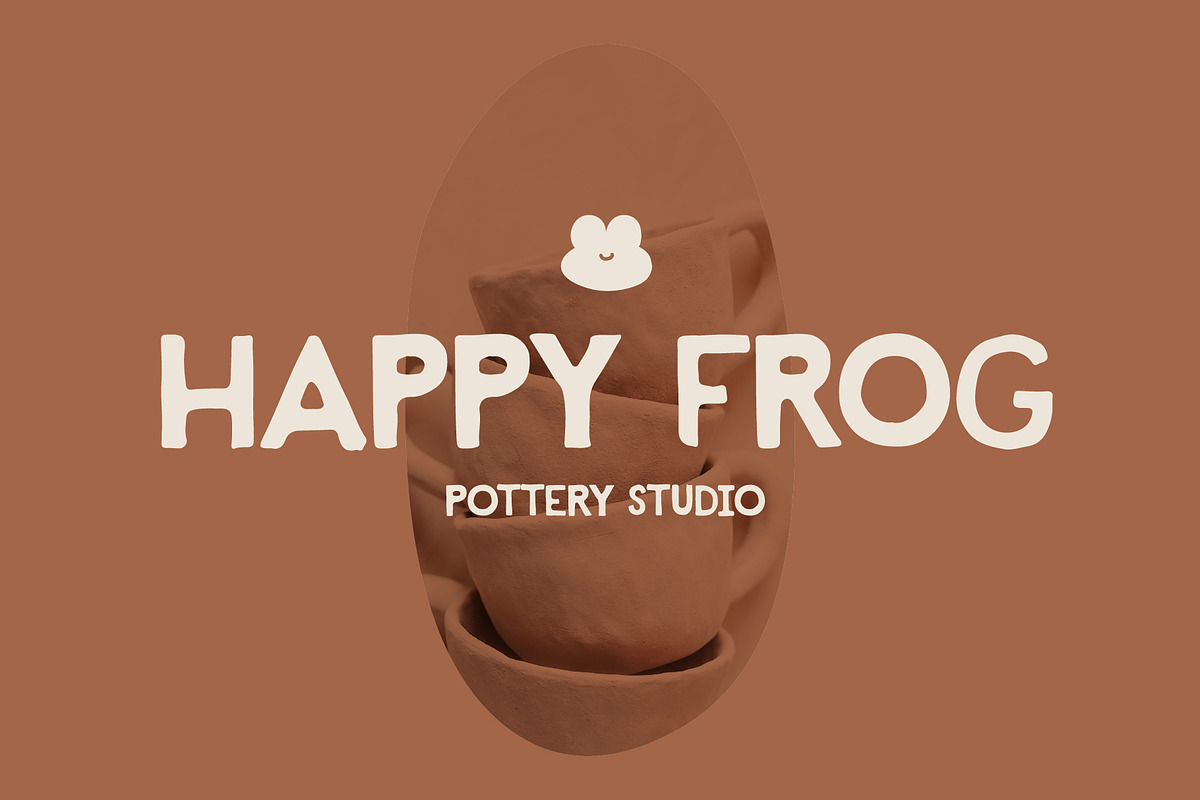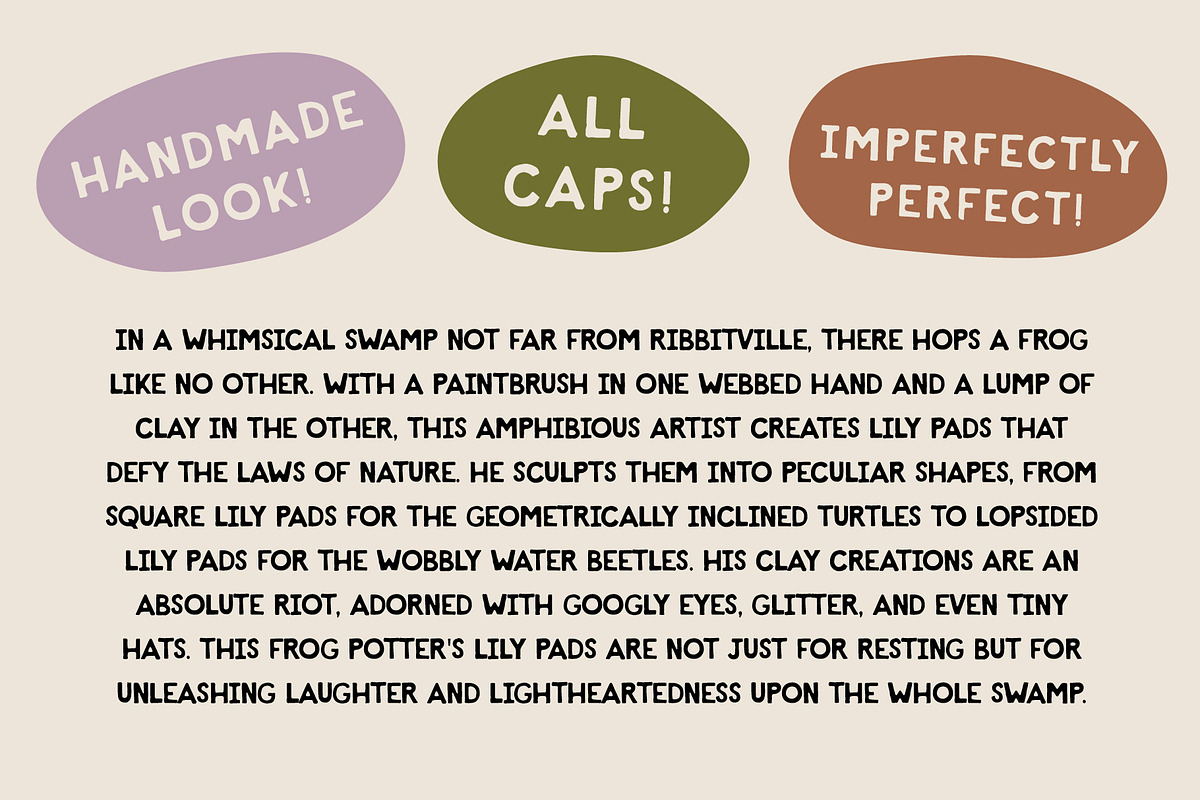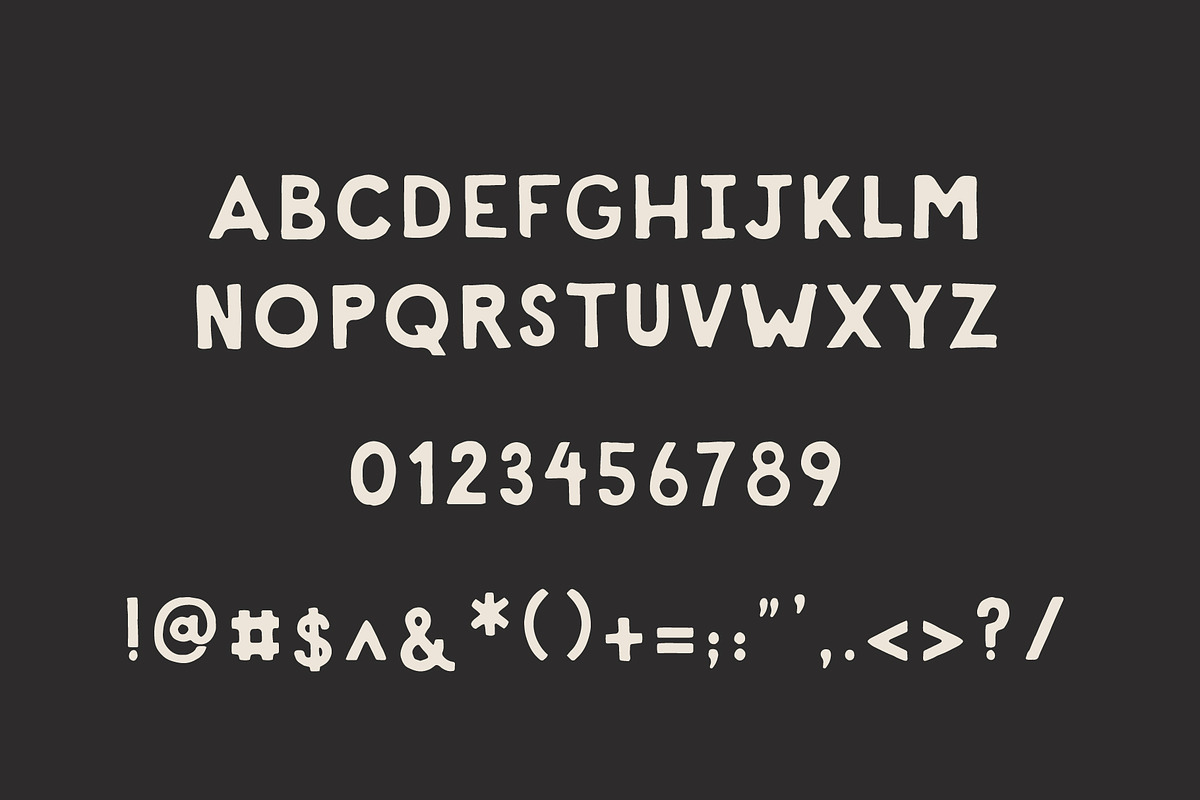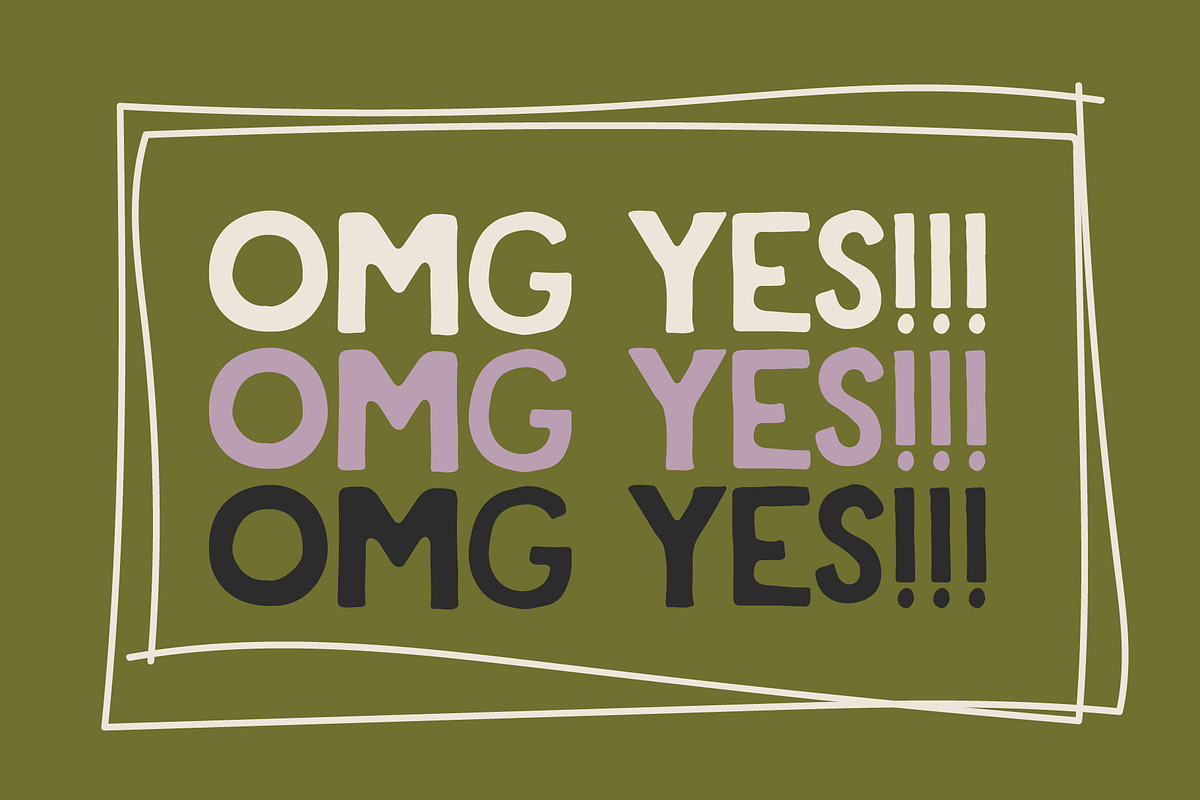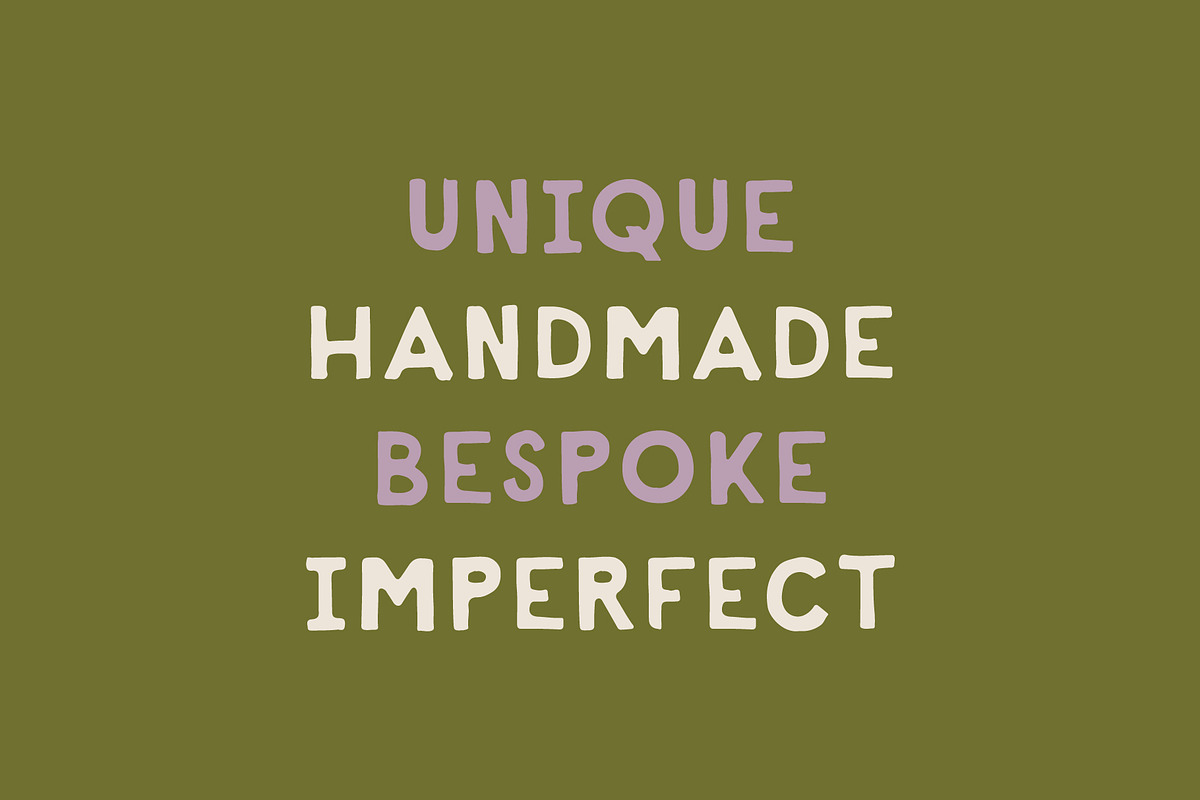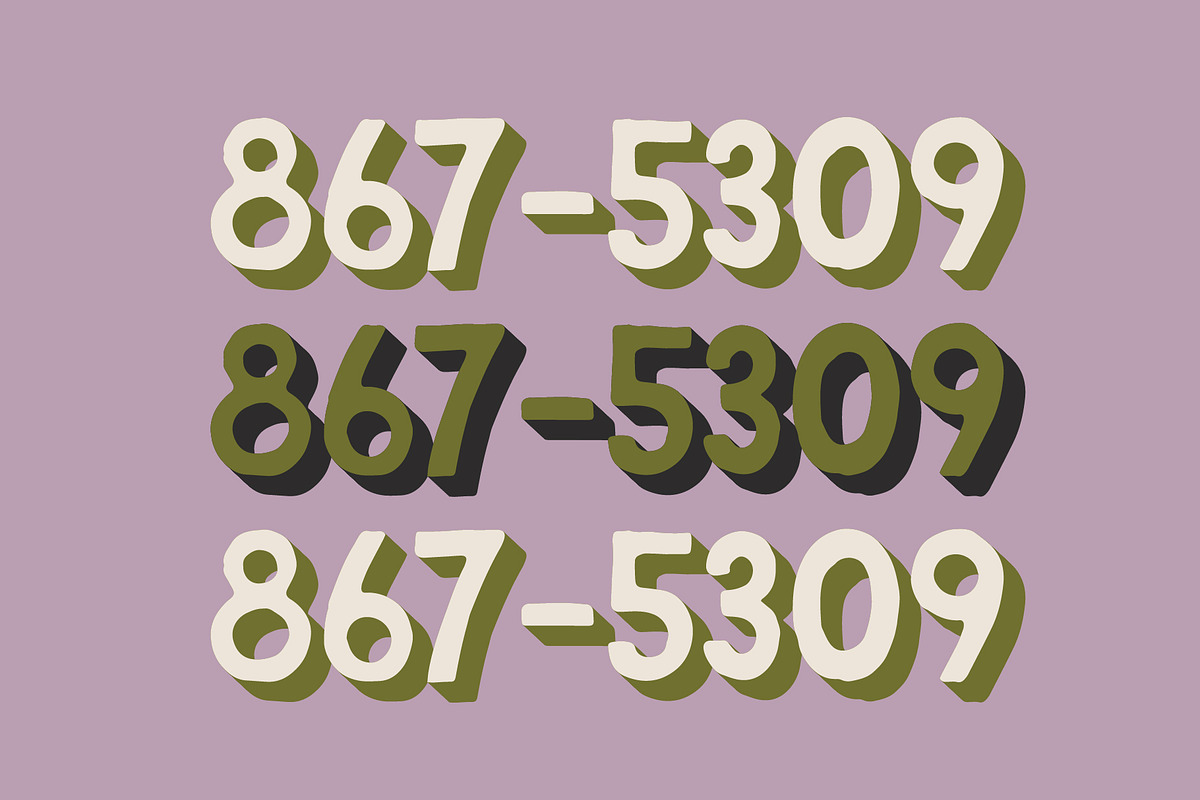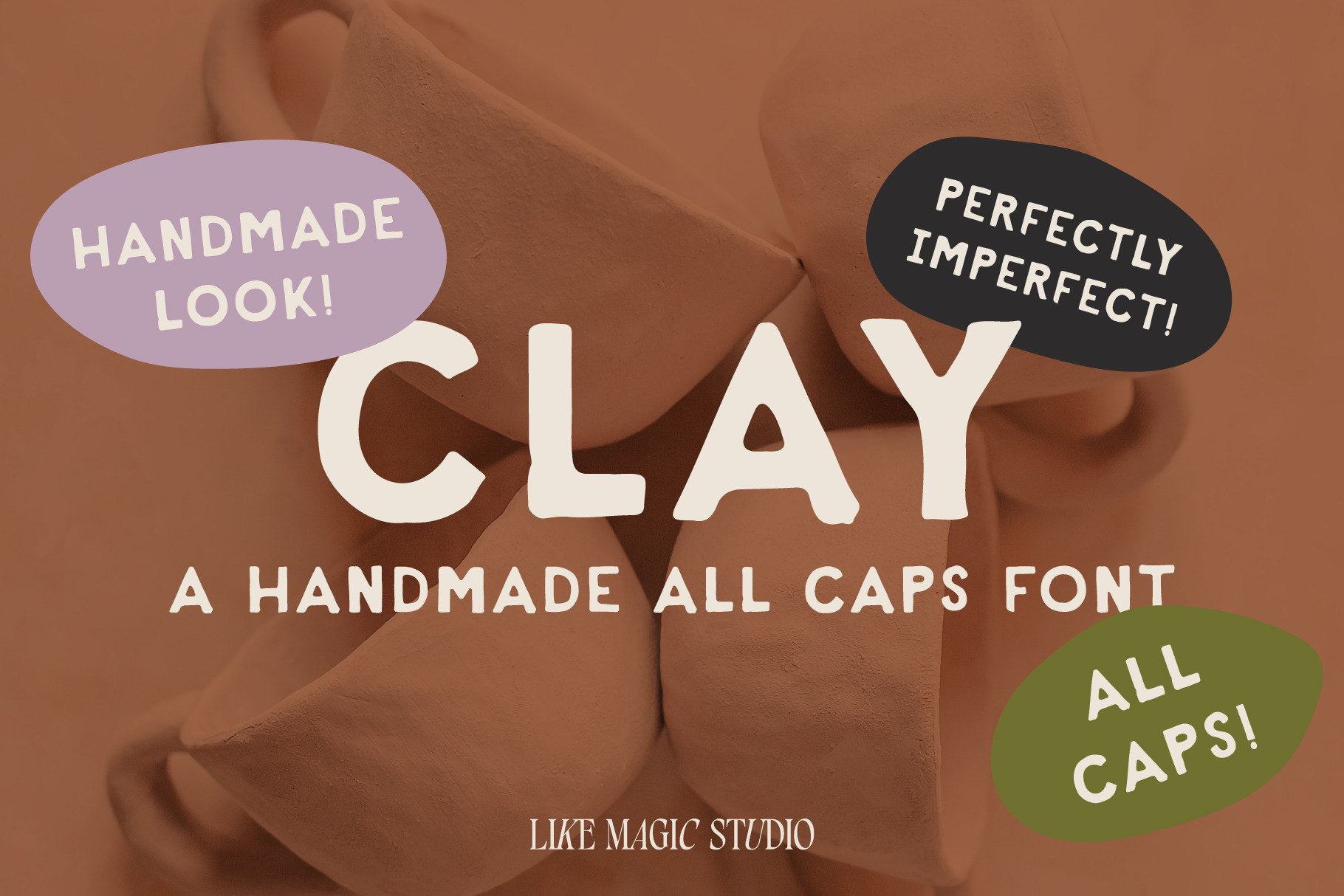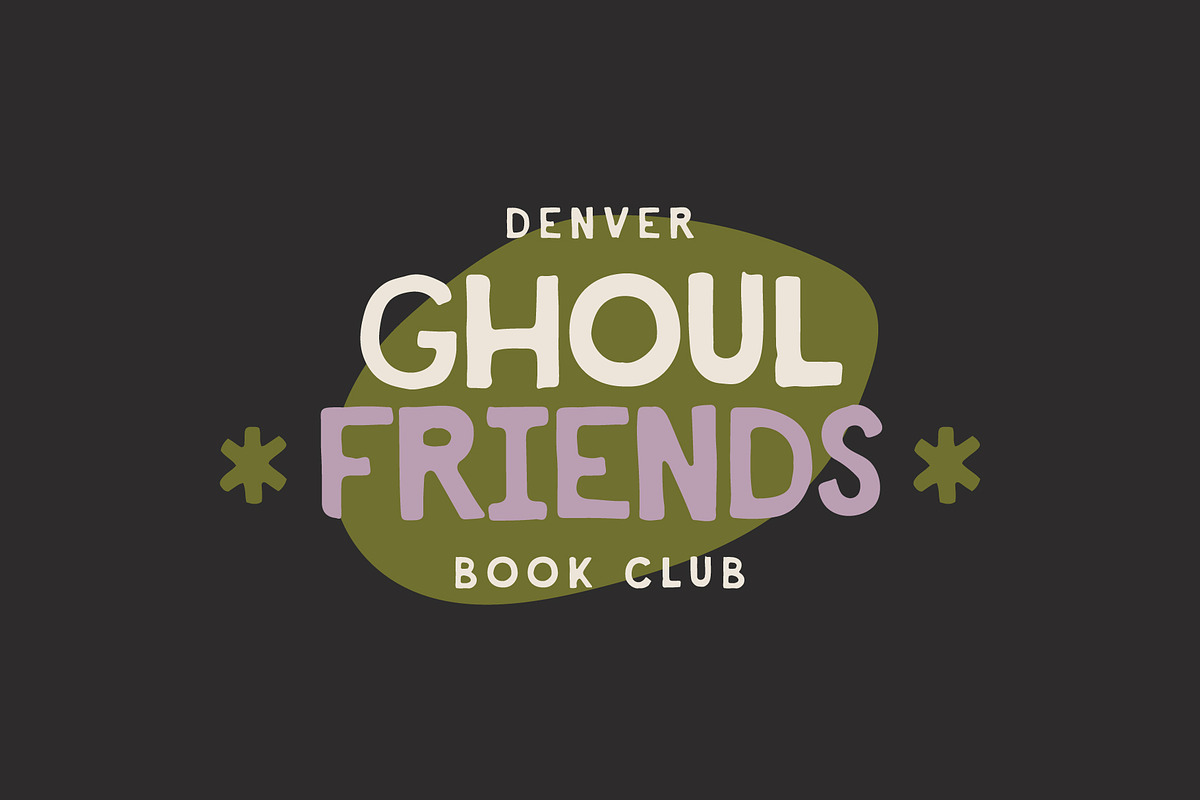
Clay - A Handmade All Caps Font
A handmade all caps font from Like Magic Studio.
Add whimsical flare to any project or brand!
I wish this font came with lowercase letters as well. Otherwise it's fab!